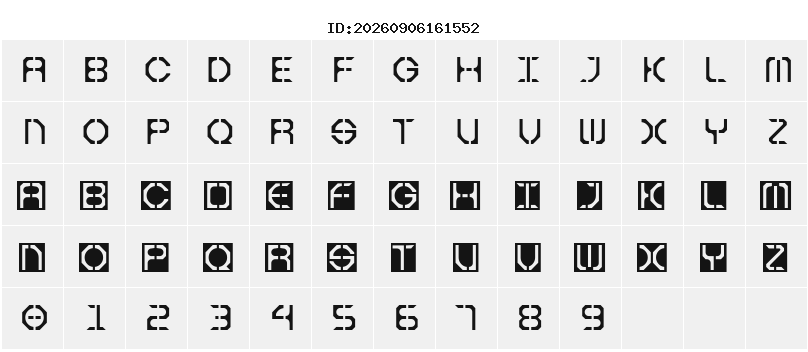
TXFreeFix Preview
• Font Name: TXFreeFix
• Full Font Name: TXFreeFix
About TXFreeFix.ttf
TXFreeFix.ttf is a modern, elegant sans-serif font designed for ultimate readability and visual harmony. Perfect for branding, headlines, web design, and print materials.